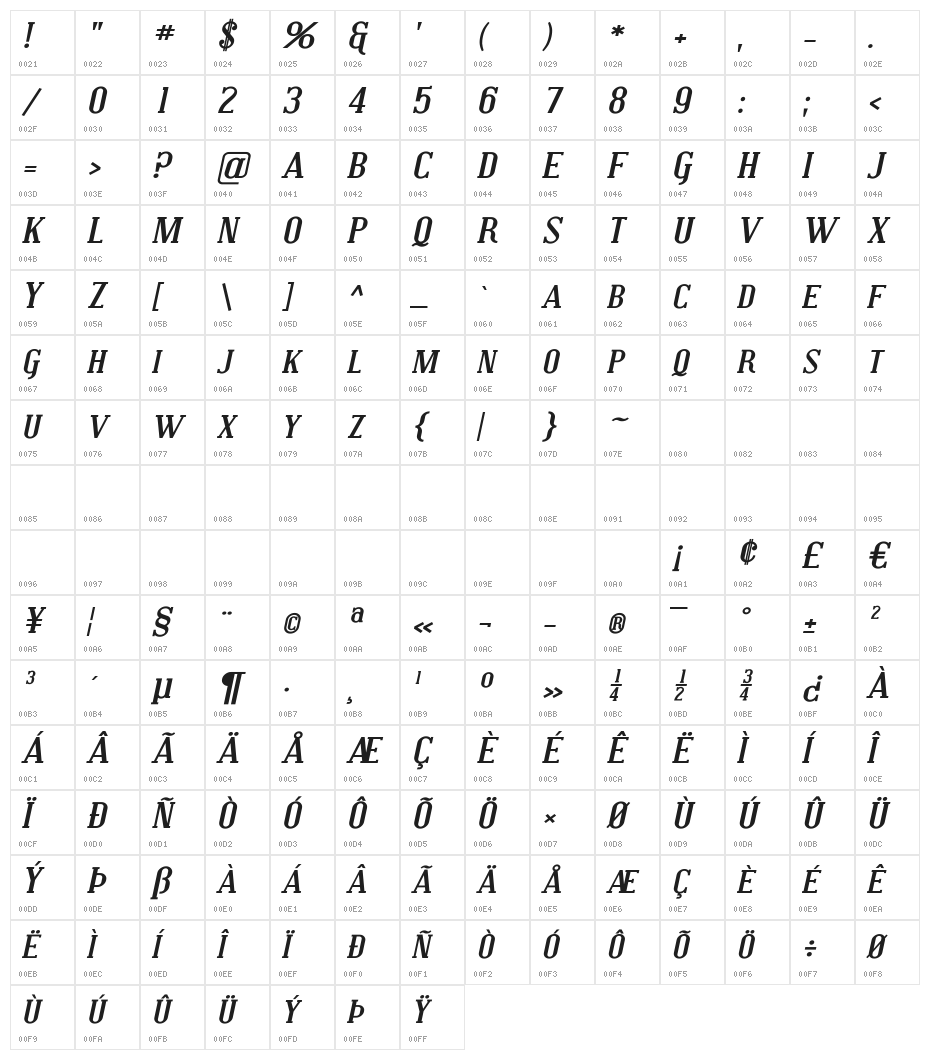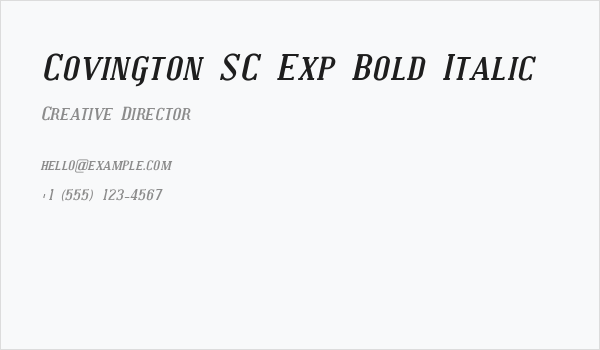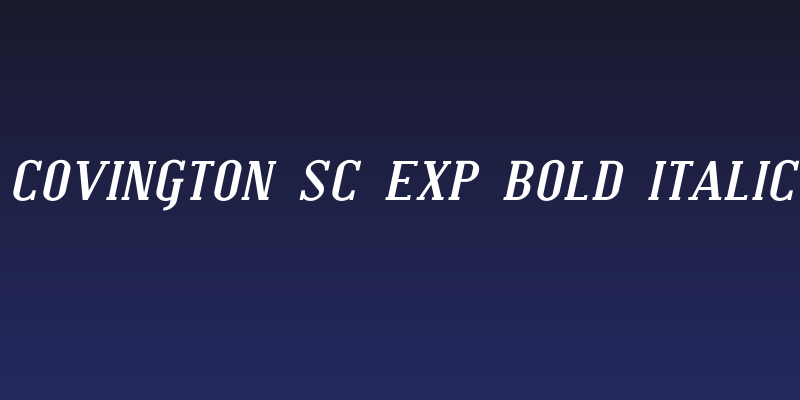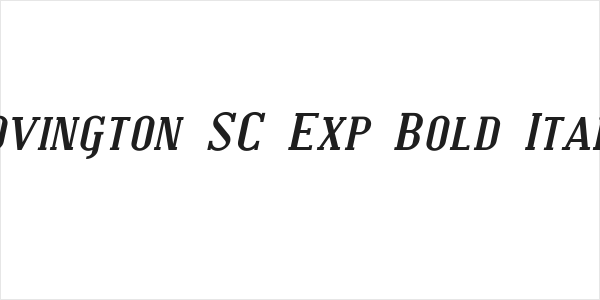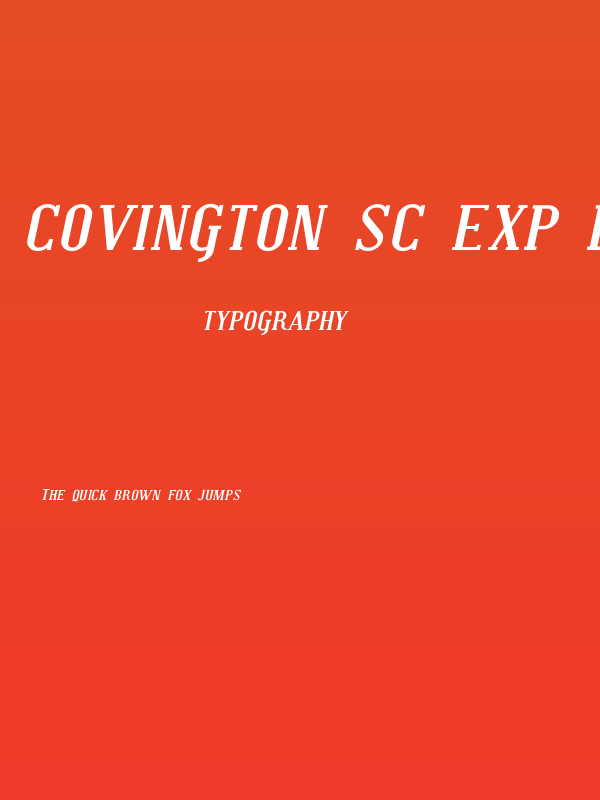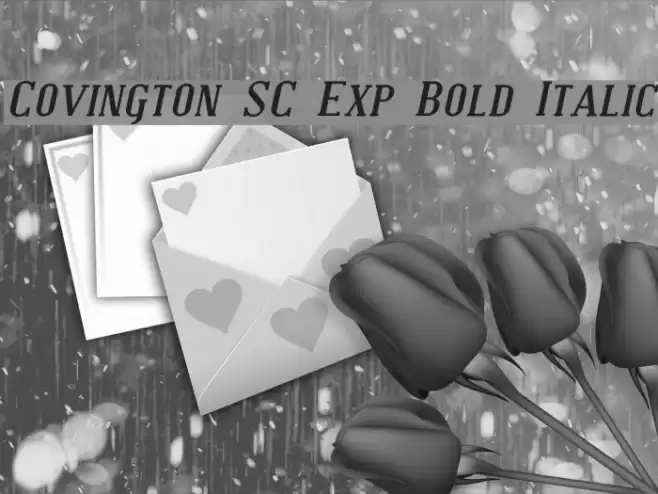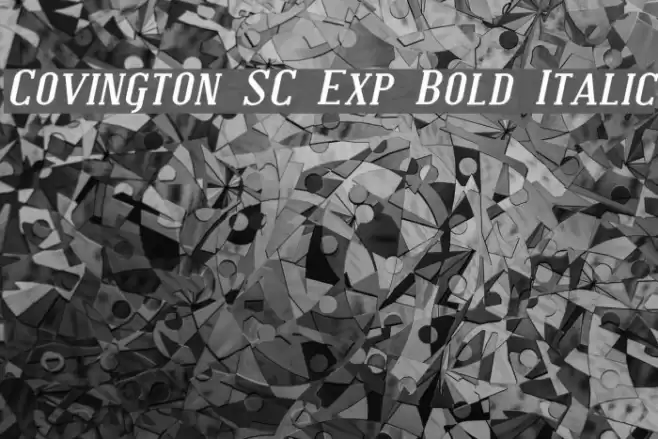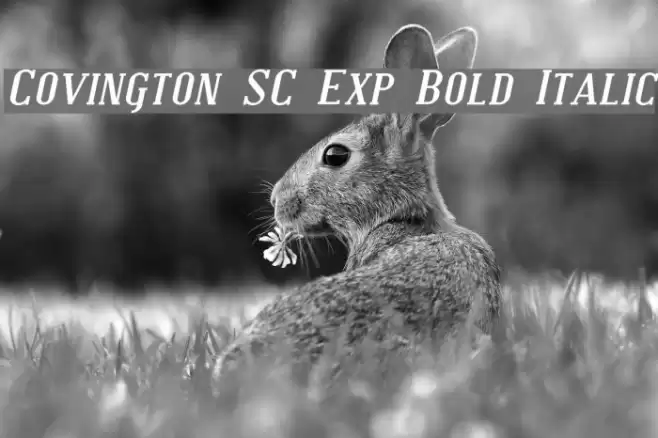
Covington SC Exp Bold Italic Font
This font features a bold and italicized style with a distinct slant, giving it a dynamic and energetic appearance. The characters are well-defined with sharp serifs, adding a touch of elegance and sophistication. The uppercase and lowercase letters maintain a consistent style, ensuring readability while still conveying a sense of movement. The numbers and special characters are designed to match the overall aesthetic, providing a cohesive look across all elements. The expanded width of the characters allows for a strong presence, making it suitable for attention-grabbing headlines or impactful design elements.